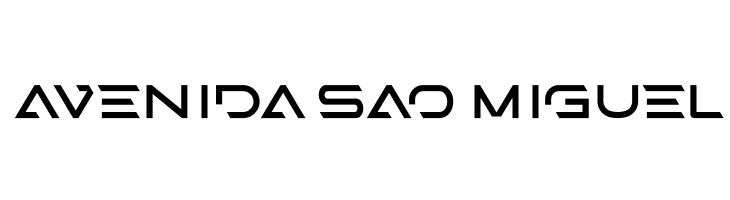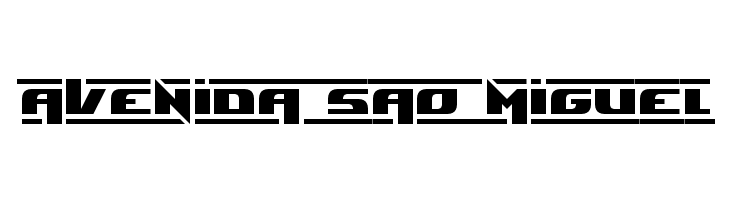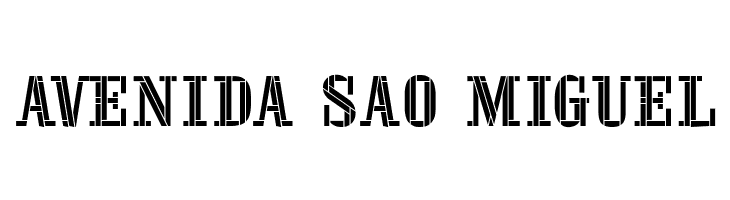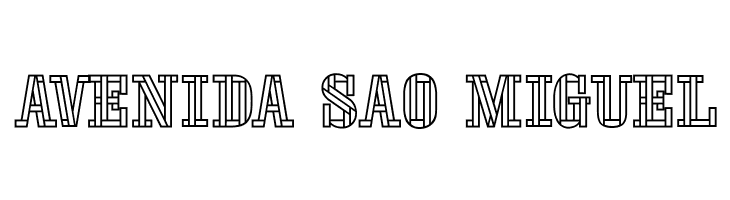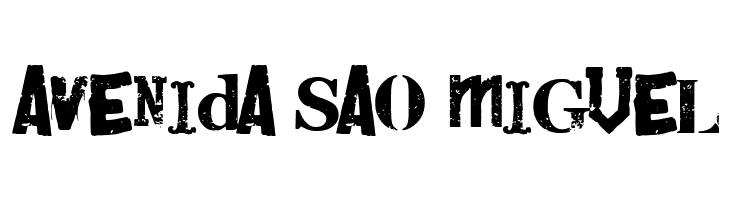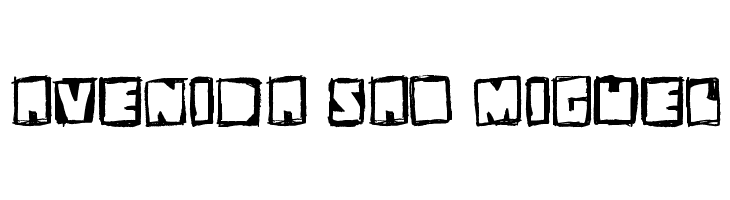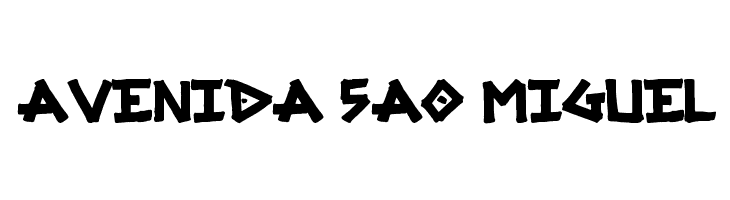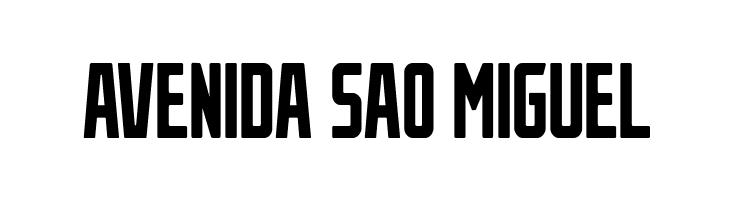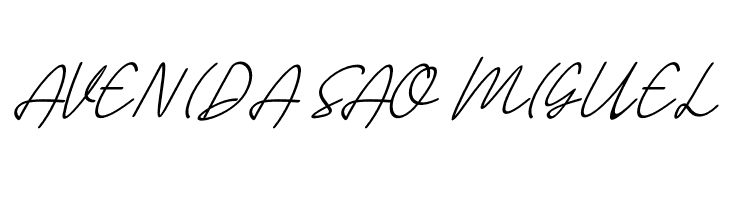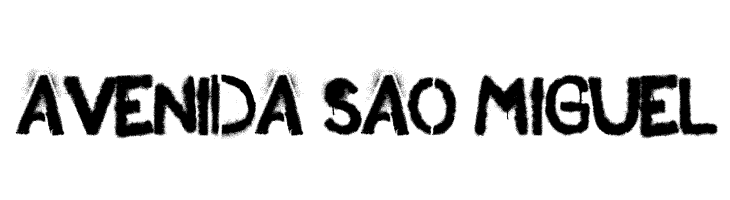
A bold, hand-painted font with a rough, textured appearance.
A playful, casual handwritten font with smooth, flowing strokes.
A bold, distressed font with a vintage, industrial feel.
A bold, textured font with a distressed, grunge-like appearance.
An elegant, decorative font with Art Deco influences and intricate detailing.
A bold, halftone-patterned font with a dynamic and textured appearance.
A playful, handwritten font with smooth curves and a slightly slanted style.
A bold, outlined font with a playful and dynamic style.
A bold, geometric font with a modern, digital aesthetic.
A bold, geometric font with an industrial and vintage feel.
A playful, handwritten font with irregular, organic letterforms.
A bold, textured font with a stippled, dotted appearance ideal for creative projects.
A bold, high-contrast serif font with dramatic and elegant features.
A bold, distressed stencil font with a military-inspired design.
A bold, distressed stencil-style font with an industrial look.
Decorative stencil font using illustrated figures and objects as glyphs.
A modern, geometric font with a futuristic outline design.
A bold, futuristic font with geometric and angular design elements.
A rugged, distressed font with a stone-washed, textured appearance.
A bold, textured font with a cracked stone appearance.
A rugged, textured font with a stone-carved appearance.
A fluid, cursive script font with elegant, connected characters.
A bold, angular font with a geometric and modern graffiti-inspired style.
A bold, expressive script font with flowing, cursive letters and artistic flair.
An ornate and decorative script font with flowing lines and elaborate swashes.